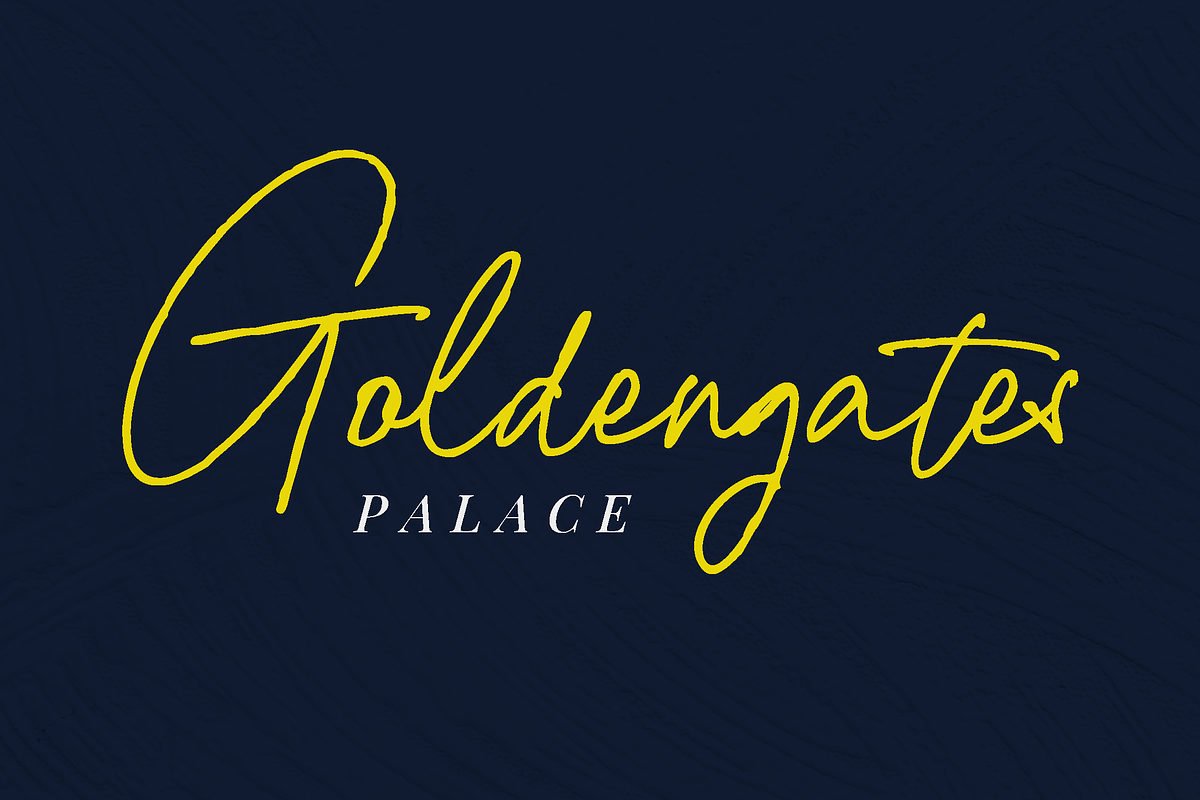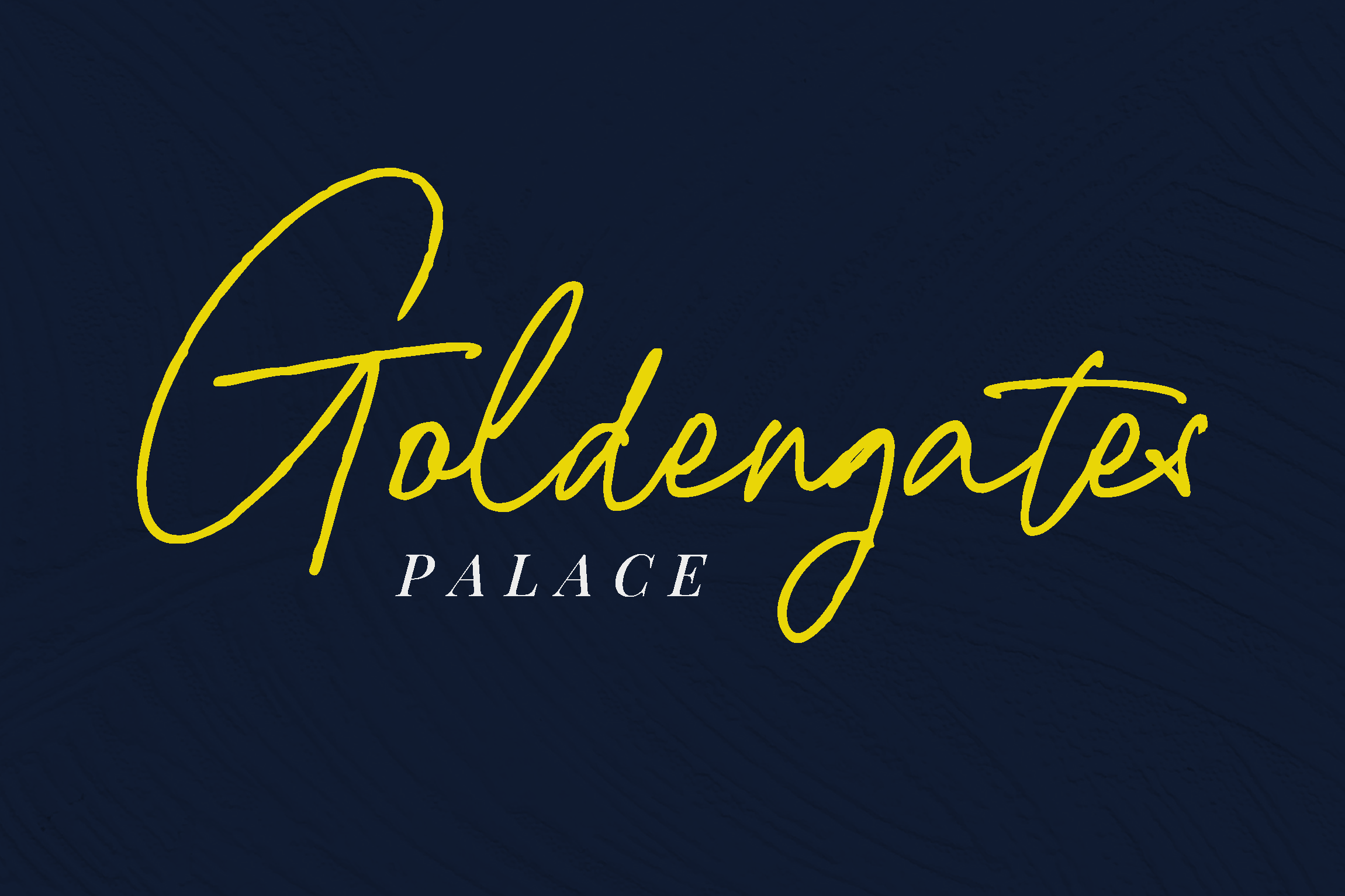
Goldengates Palace Font
We're proud to offer our new Goldengates Palace natural signature fonts. They're hand-lettered in a calligraphic style that captures the essence of handwriting—emotionally expressive and uniquely yours. It's like having your own personal artist on staff!